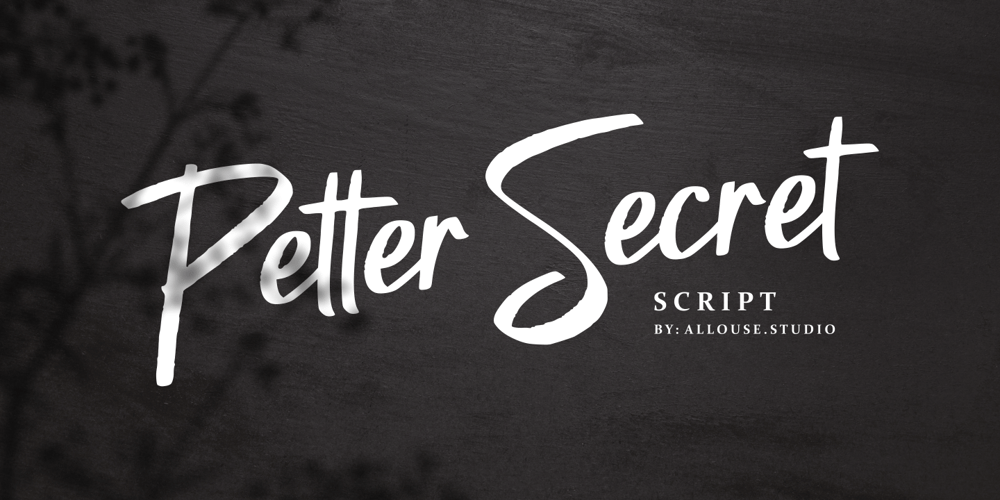
Petter Secret Font Family was designed by Fachrizal Yusuf and published by Allouse Studio. Petter Secret contains 1 styles and family package options. Petter Secret a Script Font, bold, elegant and manly!Petter Secret come along with Multi-Lingual Support.We highly recommend using a program that supports OpenType features and Glyphs panels like many of Adobe apps and Corel Draw, so you can see and access all Glyph variations.Petter Secret is perfect for any tittles, log, product packaging, branding project, megazine, social media, wedding, or just used to express words above the background.Enjoy the font, feel free to comment or feedback, send me PM or email. Thank You!